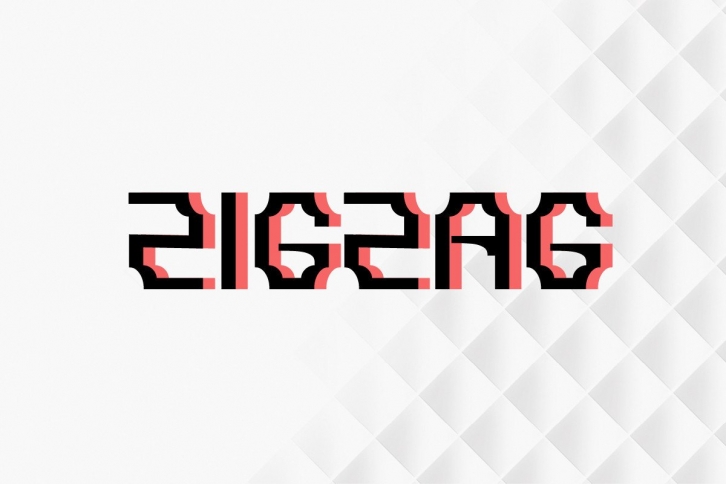
Zigzag is a fun and cool display font. It’s a retro and modern dance at the same time. It will help your work to stand out and elevate a wide range of crafting ideas, from cards to branding, labels, and much more. You can use it for presentations, banners and games.